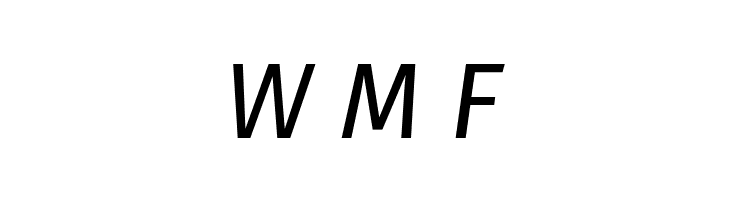
• Trujillo SemiBold
A modern, semi-bold typeface with clean lines and excellent legibility.
• Trujillo ExtraBold
A bold, modern sans-serif typeface with strong, thick strokes.
• Trujillo Light
A modern, light sans-serif font with clean lines and excellent readability.
• Trujillo
A modern, clean sans-serif font with uniform strokes and slightly condensed proportions.
• Trujillo Medium
A modern sans-serif font with a clean and balanced design.
• Trujillo Italic
A modern, clean italic font with smooth curves and a sleek appearance.
• Trujillo Thin Italic
A sleek, thin, and italicized font with a modern and elegant style.
• Trujillo ExtraLight Italic
A sleek, extra-light italic sans-serif font with a modern and elegant style.
• Trujillo SemiBold Italic
A modern, semi-bold italic font with a sleek and dynamic style.
• Trujillo Thin
A sleek, modern font with thin, elegant strokes and a minimalistic design.
• Trujillo Medium Italic
A sleek, modern italic font with medium weight and smooth strokes.
• Trujillo Bold
A bold, modern font with clean lines and strong presence.
• Trujillo ExtraLight
( Fonts by Fira Sans original fonts by bBox Type GmbH, Carrois Corporate GbR, & Edenspiekermann AG / Changes by Cristiano Sobral - Personal-use only. For commercial use please contact owner. )
A clean, modern font with thin, uniform strokes and a minimalistic design.
• Trujillo Black
A bold, impactful typeface with thick, uniform strokes.